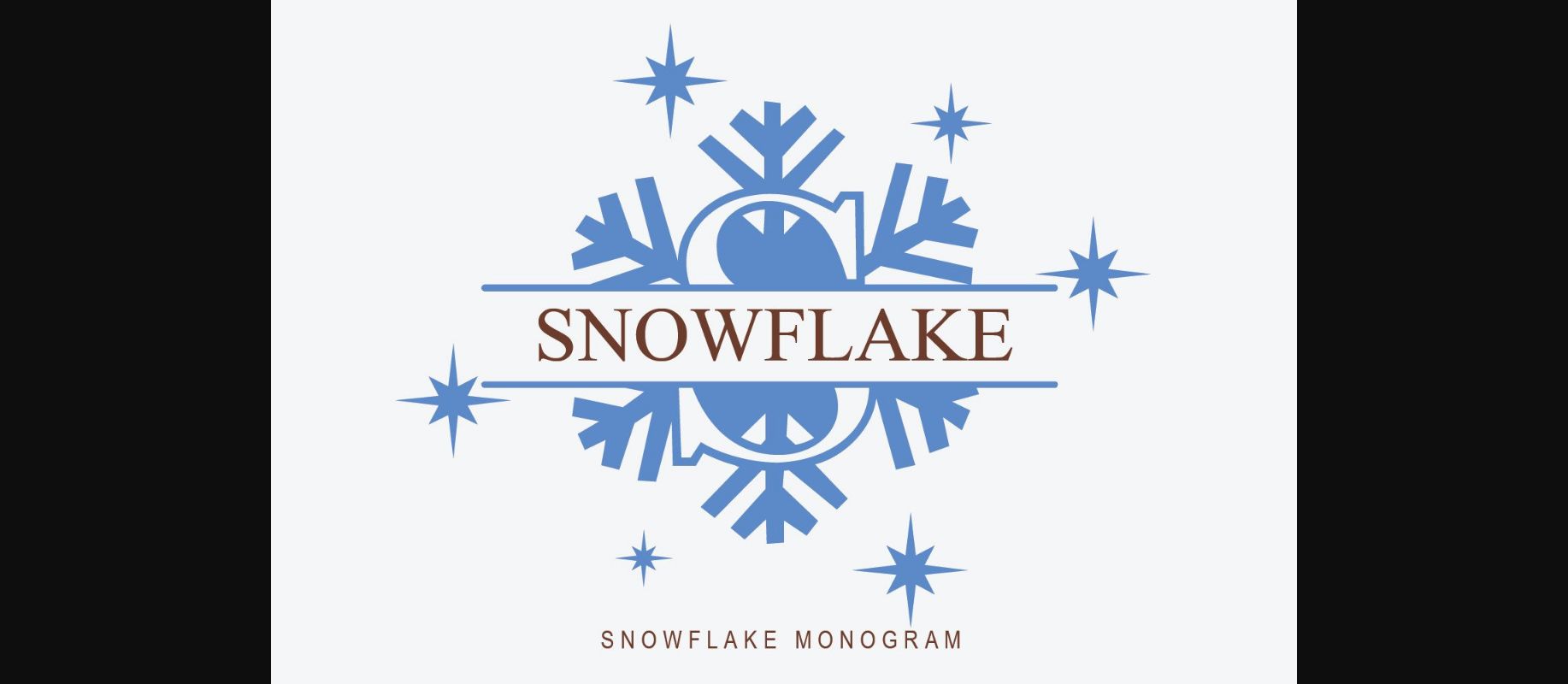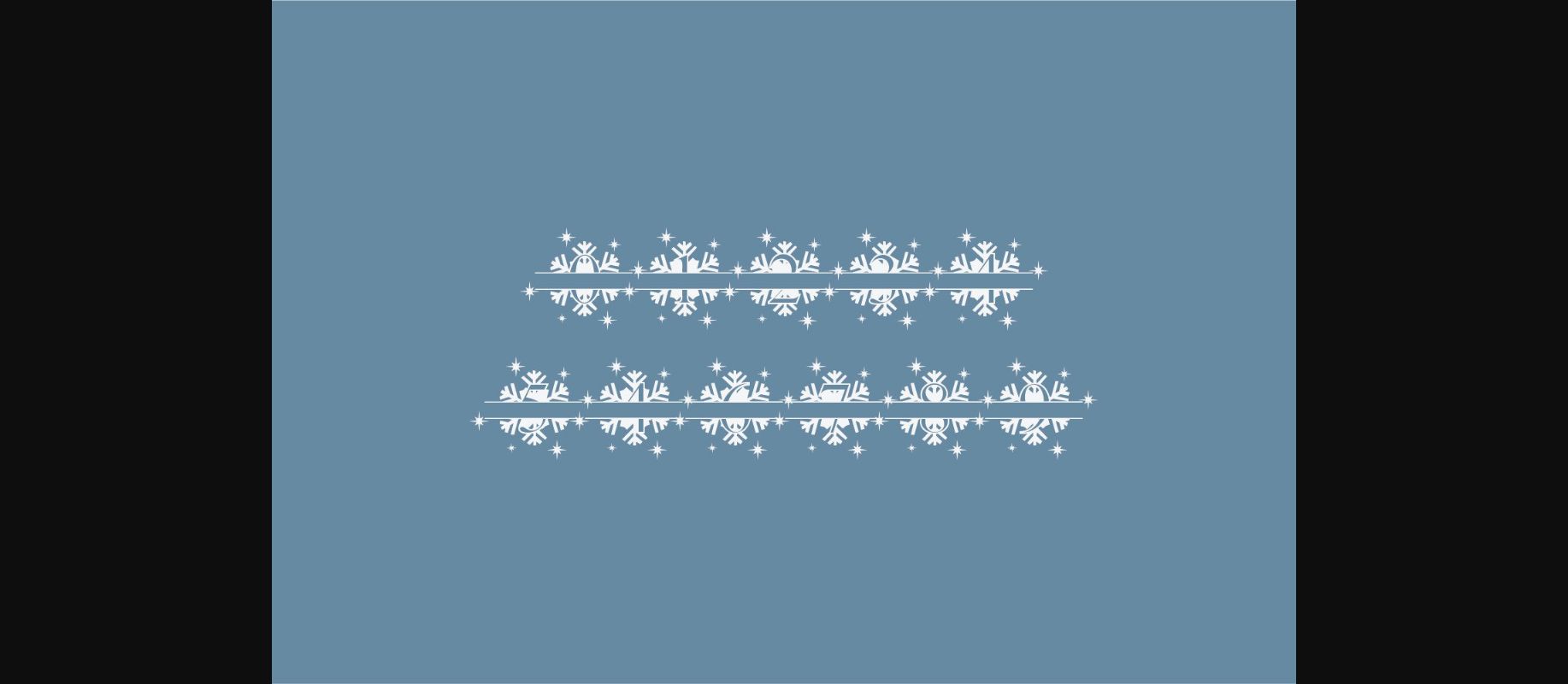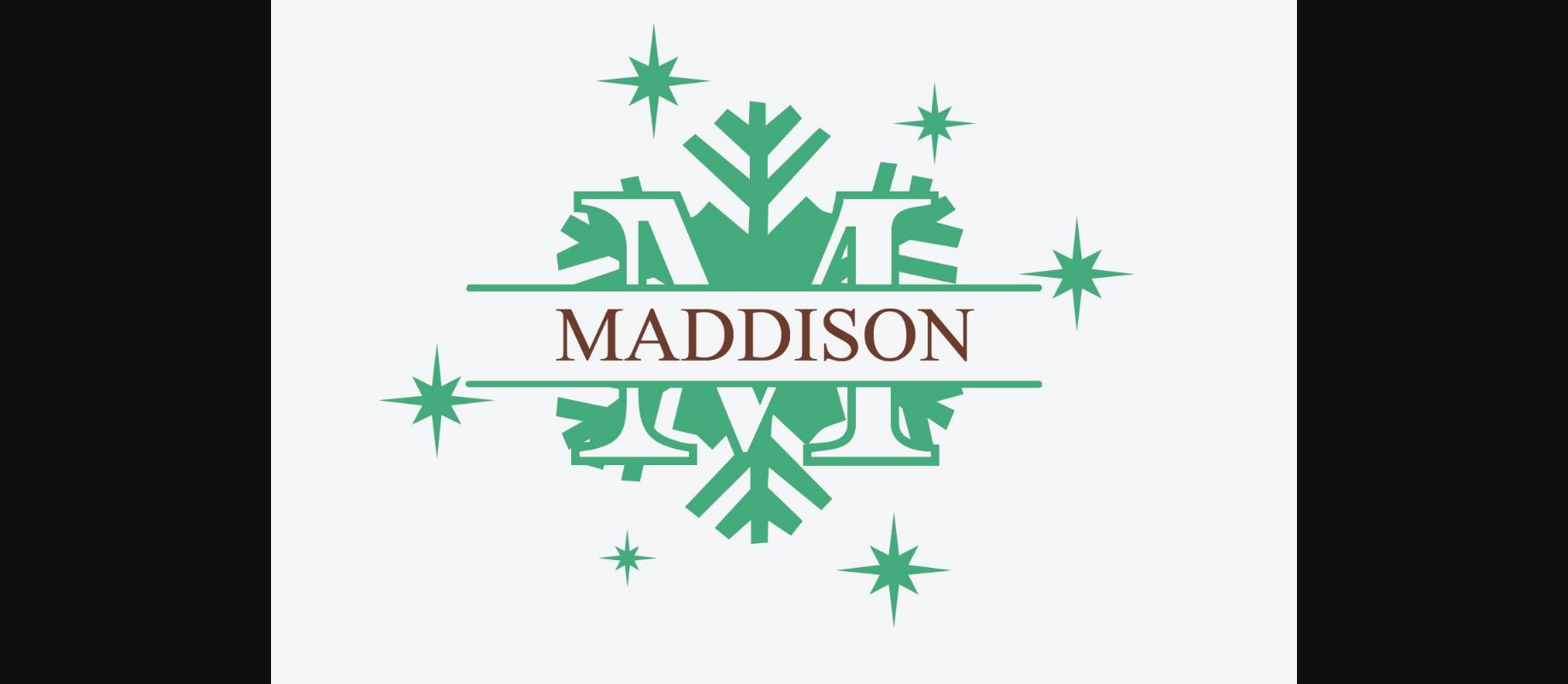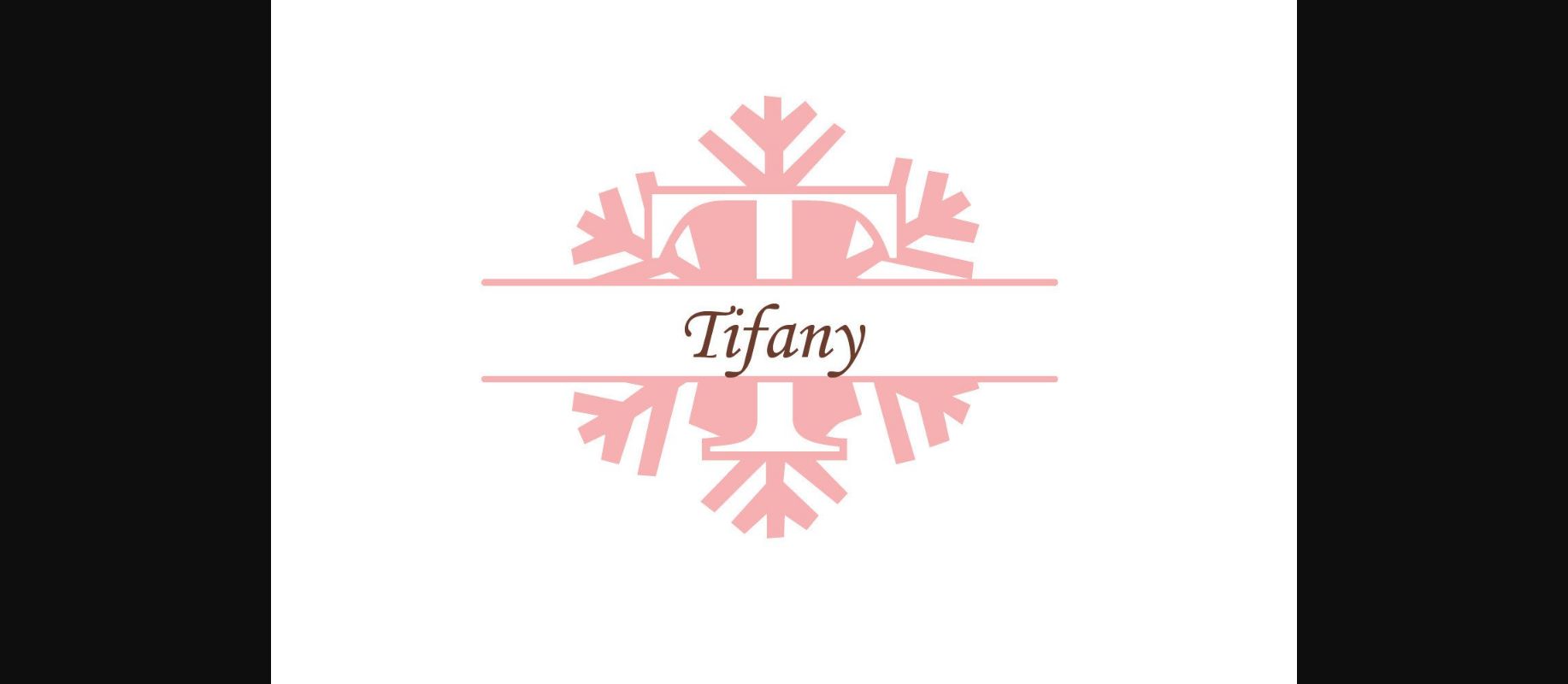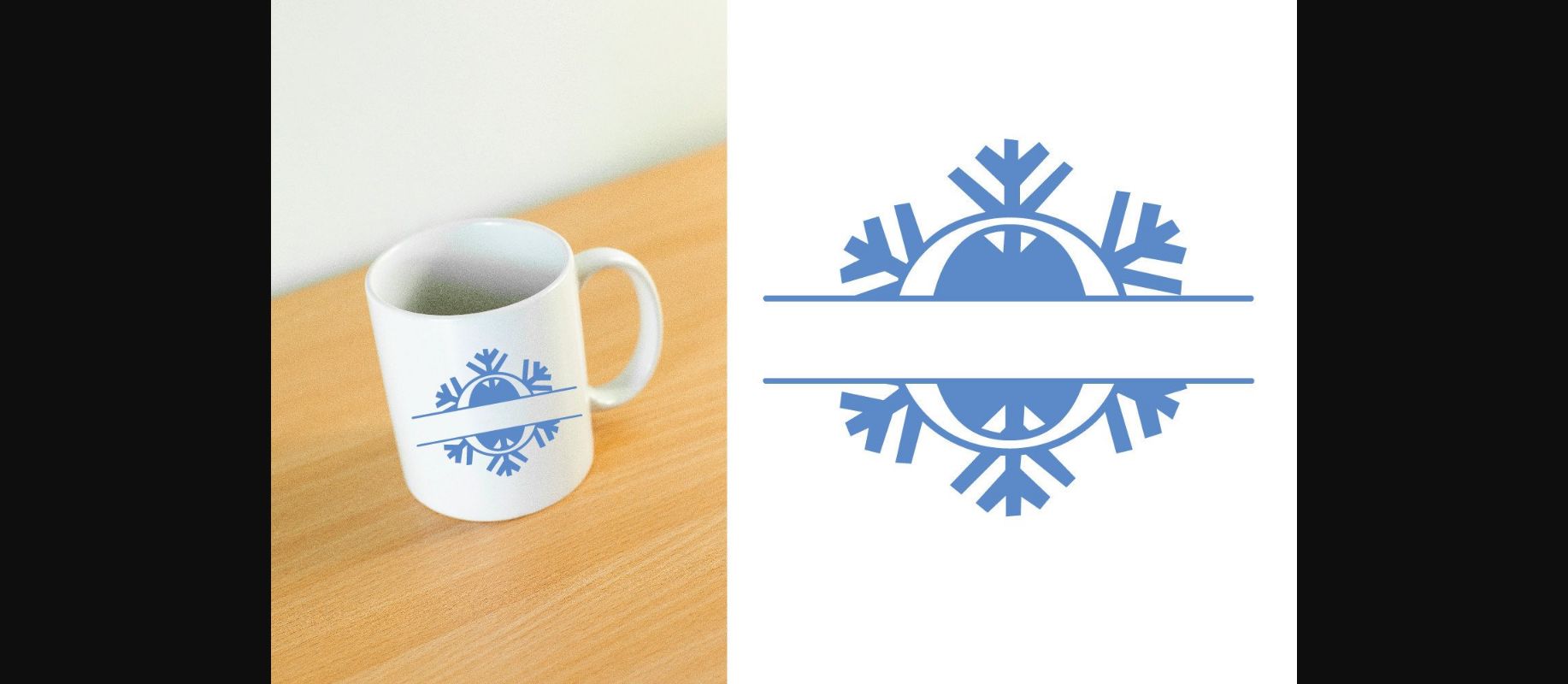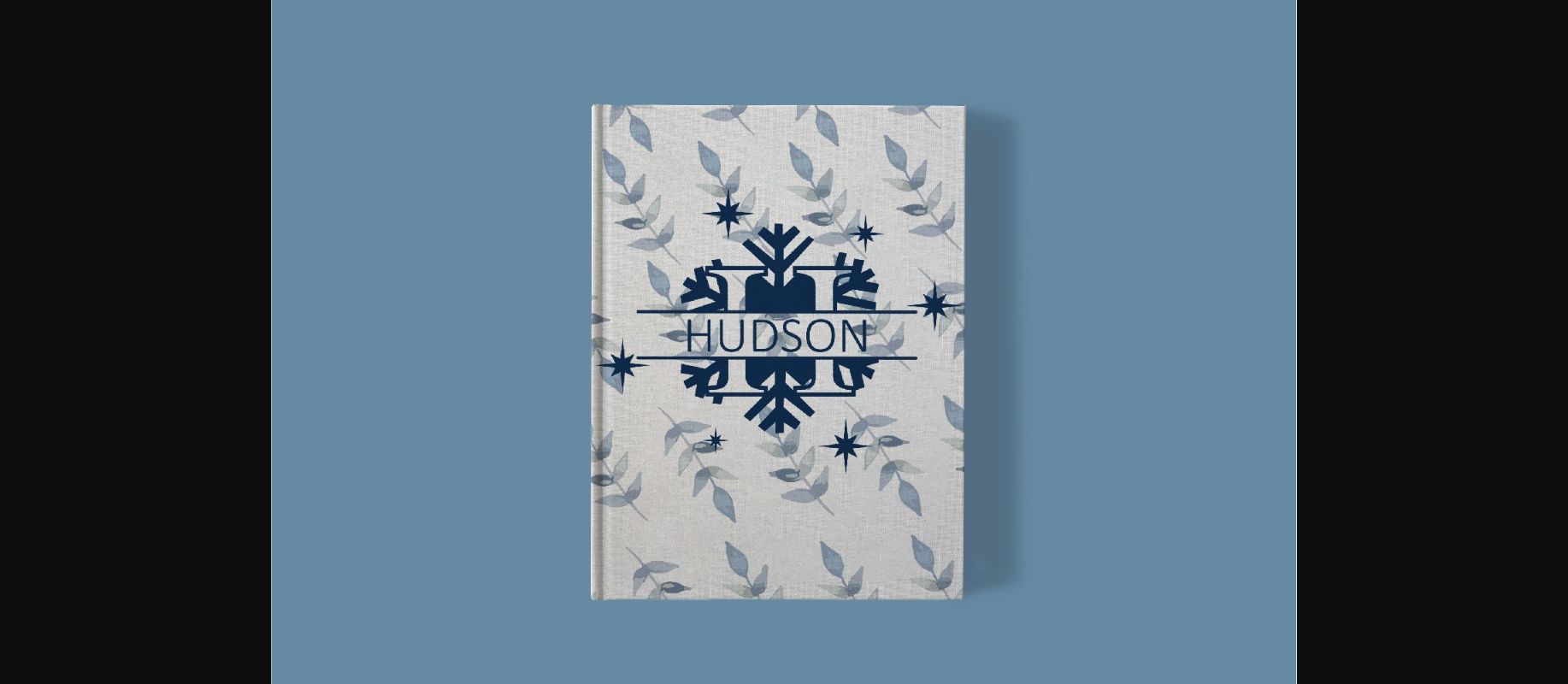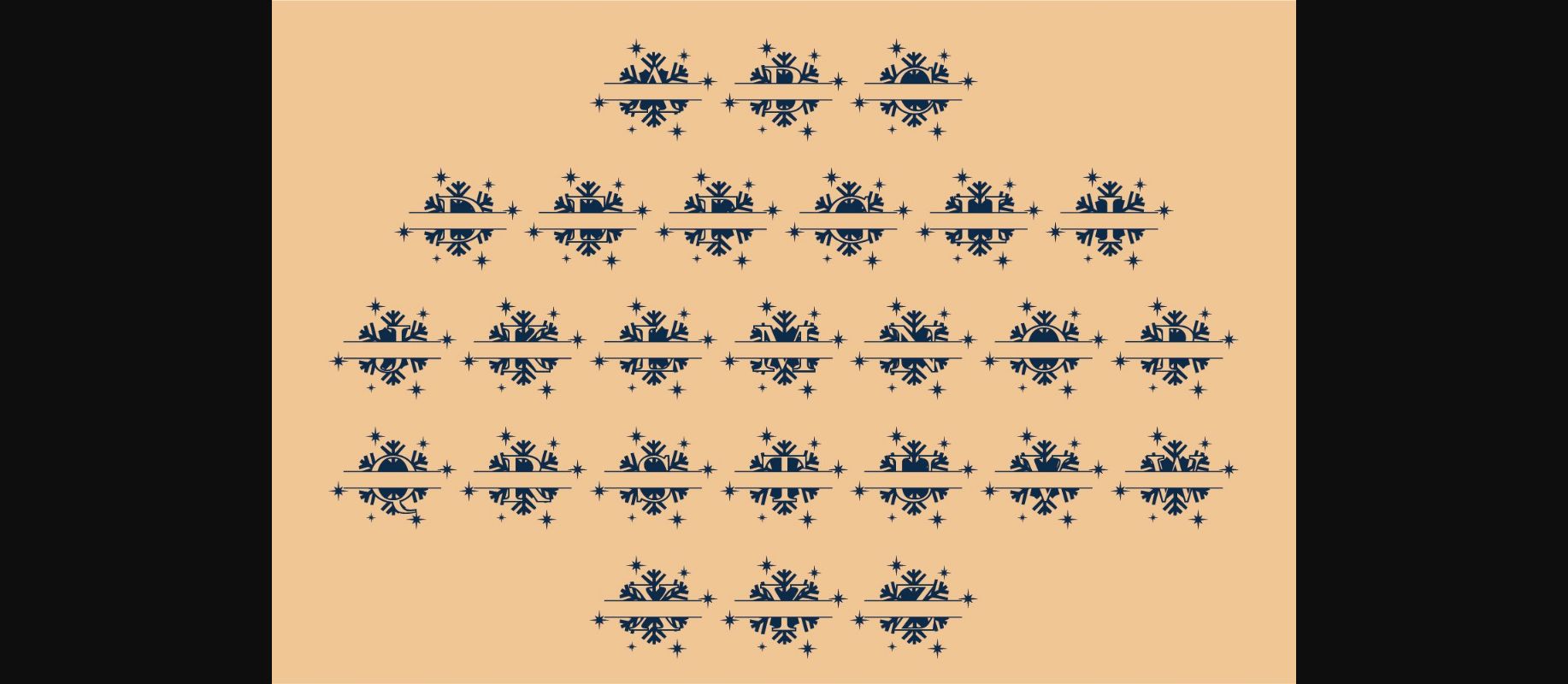
Snowflake Monogram Font
About Snowflake Monogram Font
Snowflake Monogram is a simple decorative font, featuring charming ornaments. Fall in love with its genuine feel and use it to create ravishing winter holiday invitations, beautiful stationary art, eye-catching social media posts, and cute greeting cards. This font is perfect for Christmas designs, shirts, crafts, farmhouse decor, SVG designs, craft projects, Holiday designs, and more.